Best Logo Fonts for Branding in 2026: Top Picks for Modern Brands
Discover the best logo fonts for branding in 2026, including modern, corporate, luxury, and futuristic styles. Learn how to choose the right branding font for your logo.
Choosing the best logo fonts for branding in 2026 is not just about style. It is about finding a typeface that makes a brand feel recognizable, trustworthy, and memorable across every touchpoint. Strong branding fonts need to work on logos, packaging, websites, social media, and marketing materials while still keeping a clear and distinctive identity. Current branding guidance continues to emphasize clarity, versatility, and long-term consistency, while 2026 typography trends are also leaning toward more expressive, character-rich, and human-feeling type choices rather than flat sameness.
In simple terms, the best logo fonts for branding in 2026 are fonts that balance readability, memorability, and personality. A good logo font should stay clear at different sizes, reflect the tone of the brand, and remain flexible enough for use across digital and print applications. Design resources from Adobe, Monotype, and Fontfabric all point toward the same principle: brand fonts are strongest when they are legible, functional across many channels, and aligned with the emotional identity of the business.
What Makes a Good Logo Font for Branding?
A strong logo font usually has five qualities:
Readable at small and large sizes
Distinct enough to feel memorable
Aligned with the brand personality
Versatile across different media
Built for long-term consistency
This matters because a logo does not live in one place. It appears on websites, product packaging, ads, presentations, storefronts, and social content. Monotype specifically frames brand typography as something that must support consistent expression across every touchpoint, not just look attractive in one mockup. Adobe also highlights the need to choose logo fonts based on the brand’s identity and practical use, not trend alone.
Best Logo Fonts for Branding in 2026
Logo Code – Best for Tech Branding
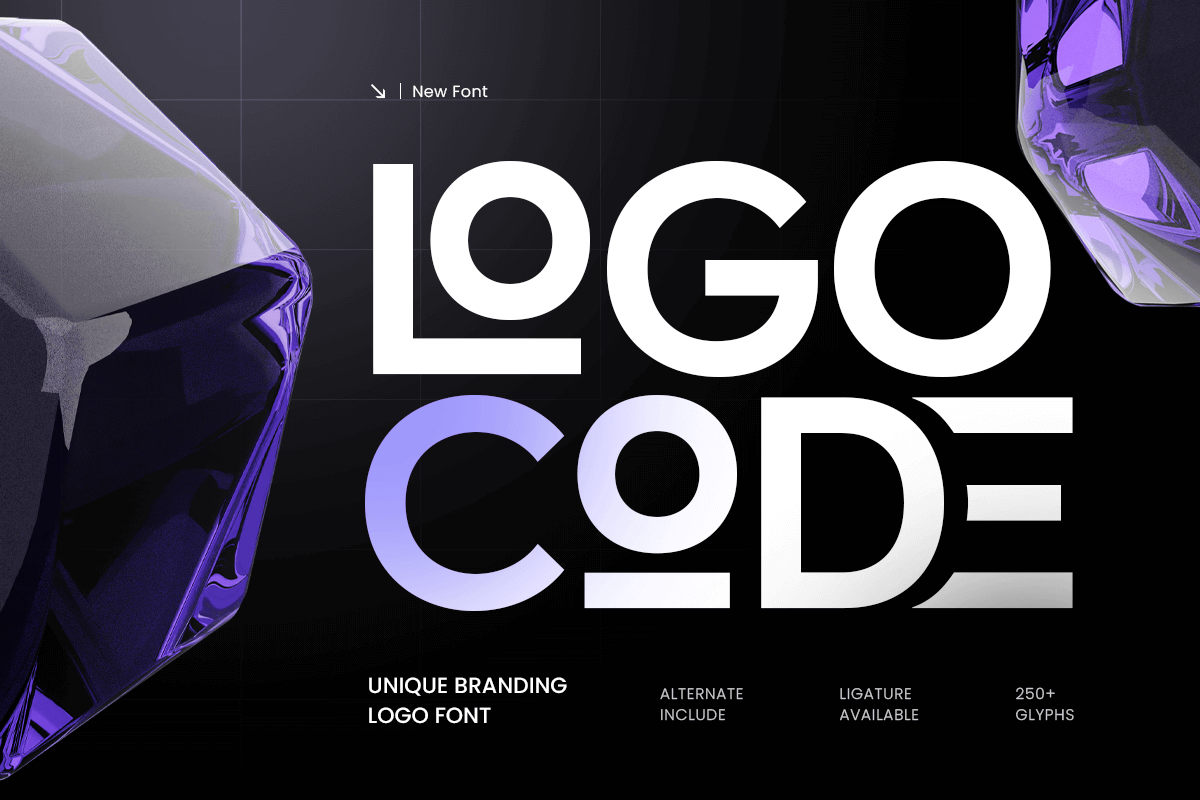
Logo Code is a modern techno branding font designed for brands that want a sleek, intelligent, and future-oriented identity. Its sharp structure makes it suitable for wordmarks that need to feel digital without becoming difficult to read. In 2026, that matters more because many branding trend forecasts point toward fonts that feel expressive and current while still staying functional in modern brand systems.
Gate – Best Corporate Logo Font
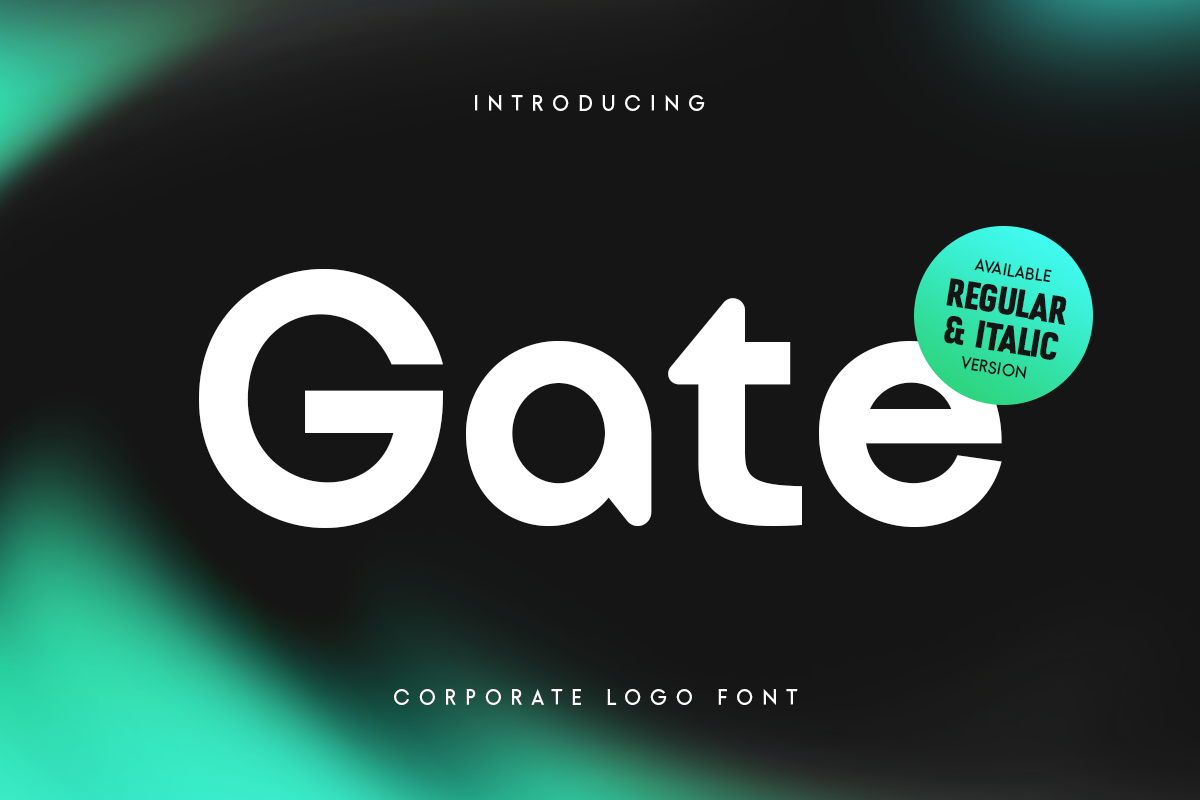
Gate is a modern corporate logo font designed for brands that want to communicate reliability and professionalism. It has the kind of clean, restrained construction that works well in consulting, finance, real estate, legal, and B2B branding. Resources on brand typography consistently show that business-facing brands perform better with fonts that feel stable, legible, and versatile across repeated use.
Radar – Best Minimalist Branding Font
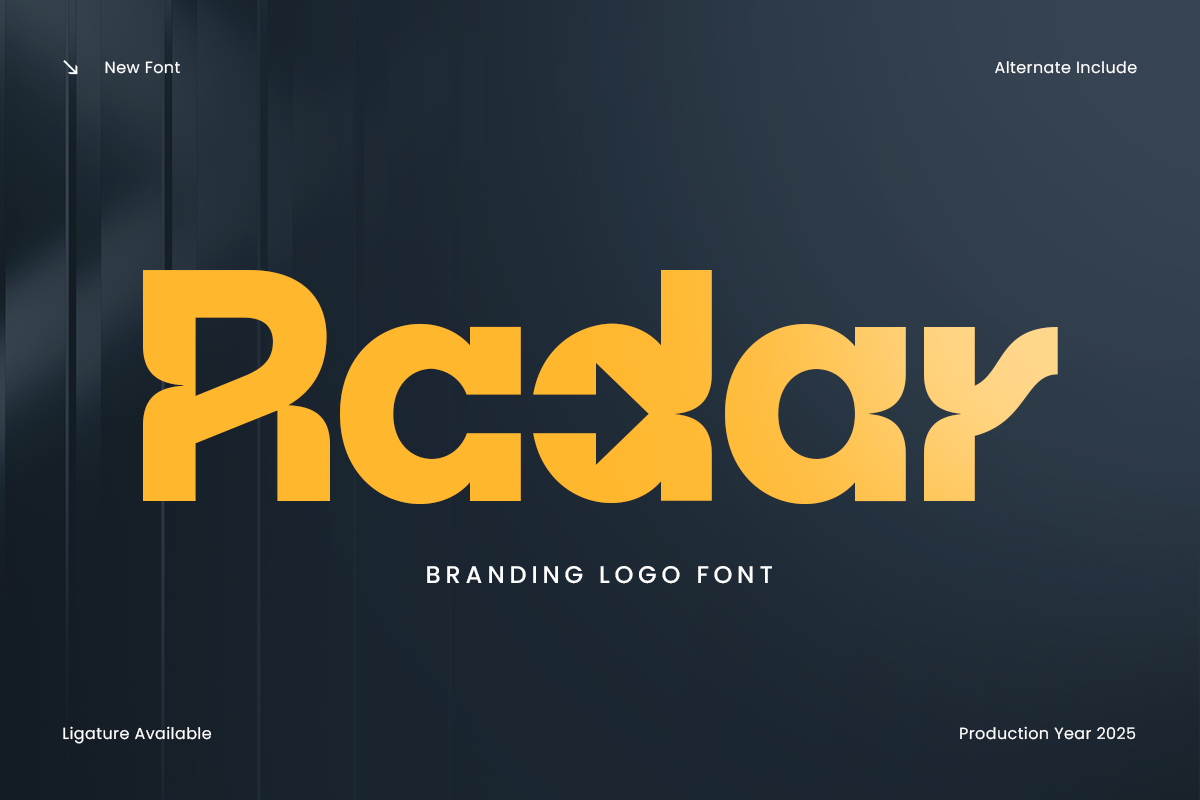
Radar is a branding logo font with a clean geometric approach that suits minimalist identities. It is ideal for brands that want a visual style that feels modern, organized, and quietly premium. Current branding advice often favors fonts that can scale across many uses without losing clarity, and minimalist geometric fonts continue to perform well in those systems because they are easy to adapt.
World – Modern Logo Font
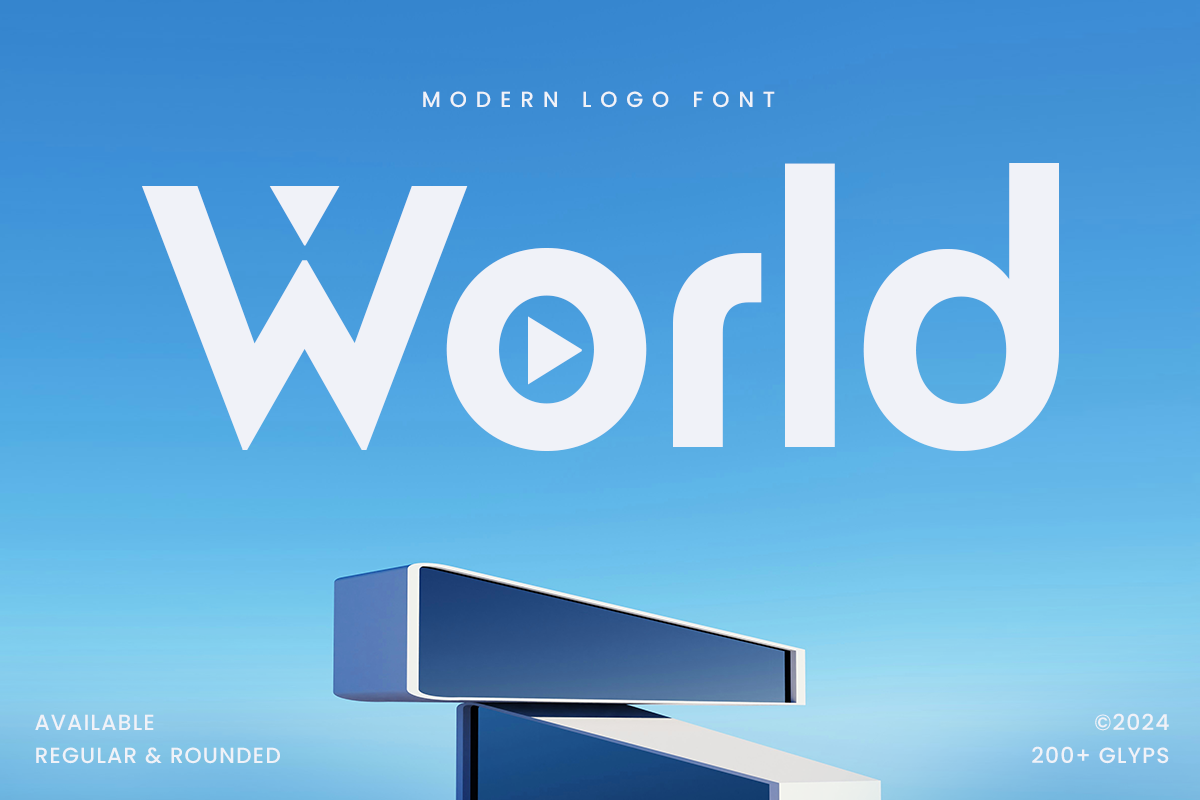
World is a modern logo font with a polished and flexible character. This is the kind of font that can move between logo work, website headers, campaign graphics, and social media without feeling out of place. That flexibility is increasingly valuable because brand systems today need typefaces that perform across many formats while still preserving a distinct voice.
Journey – Best Futuristic Logo Font
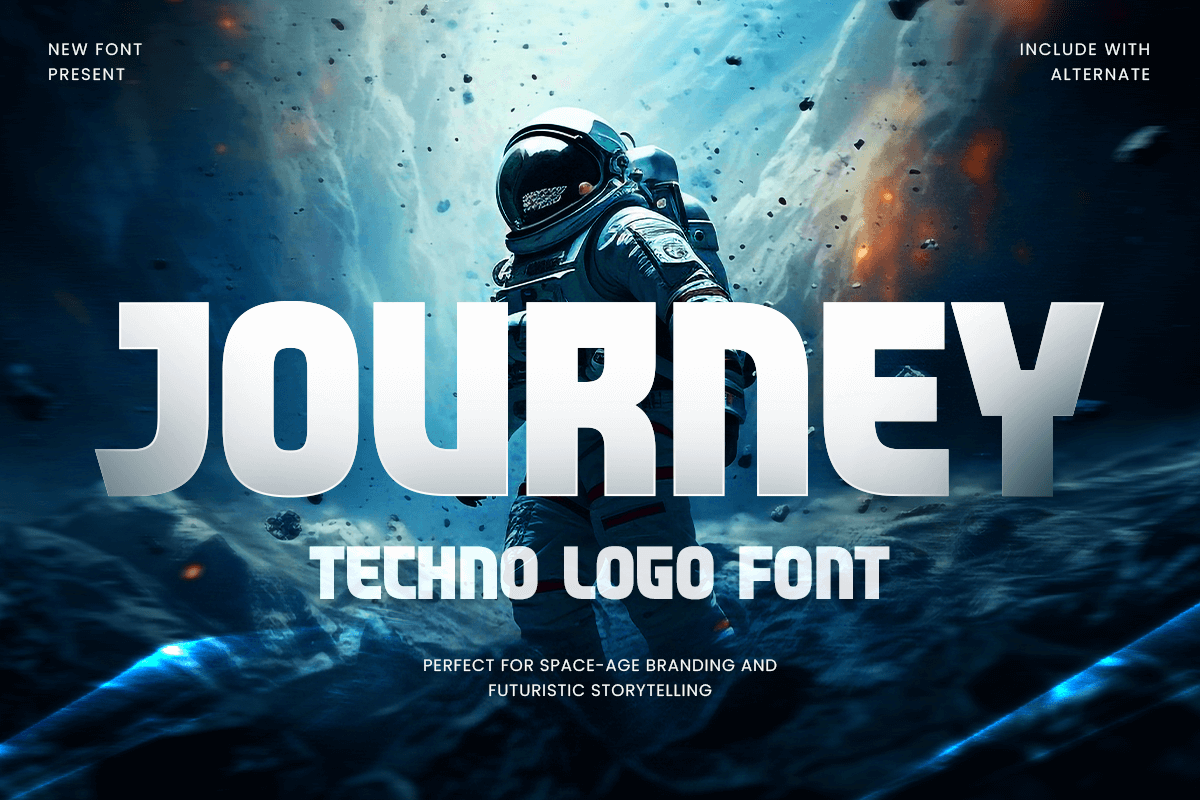
Journey is a techno logo font built for innovation-driven branding. Its sharper geometry and digital character make it especially suitable for AI, gaming, software, and future-focused design projects. This fits with broader 2026 visual trend reports that note continued interest in expressive typography, hybrid retro-future aesthetics, and more emotionally charged visual identities.
How to Choose the Right Logo Font for Your Brand
Choosing a logo font becomes much easier when you match the font style to the job the brand needs to do.
Choose a serif logo font if you want:
luxury
tradition
elegance
editorial sophistication
Choose a sans serif logo font if you want:
clarity
modernity
flexibility
clean digital performance
Choose a geometric font if you want:
structure
balance
minimalism
confident brand clarity
Choose a techno or futuristic font if you want:
innovation
motion
digital identity
a more forward-looking visual tone
Adobe recommends understanding the core categories of logo font styles before choosing one, while Monotype emphasizes balancing strong identity with practical functionality. That is the real game: not choosing the fanciest font, but choosing the font that your brand can live with for years.
If you are building a new brand identity, do not choose a font only because it looks trendy in one screenshot. Choose the one that still makes sense when your logo appears on a website header, a product label, a social profile, and a pitch deck months from now. That is where a branding font proves its real value.